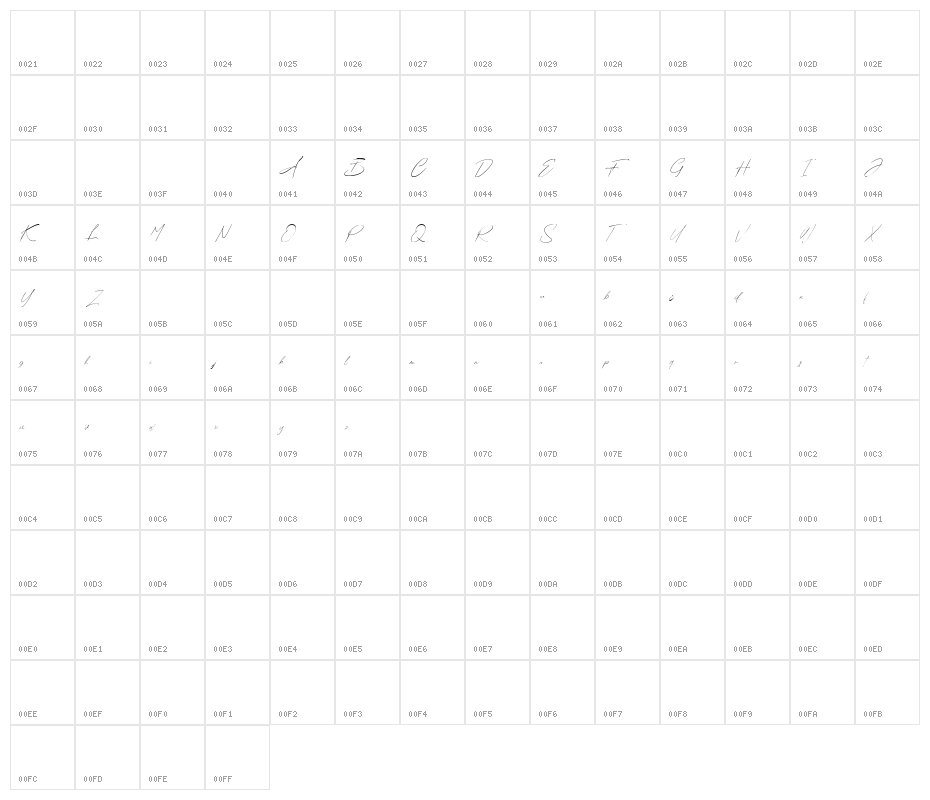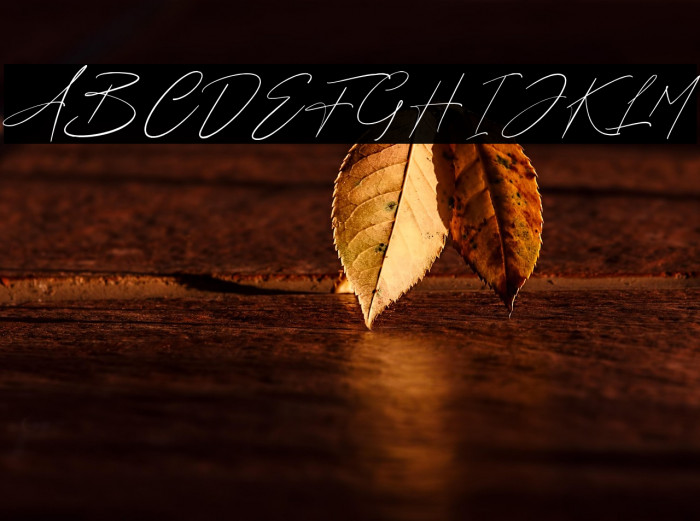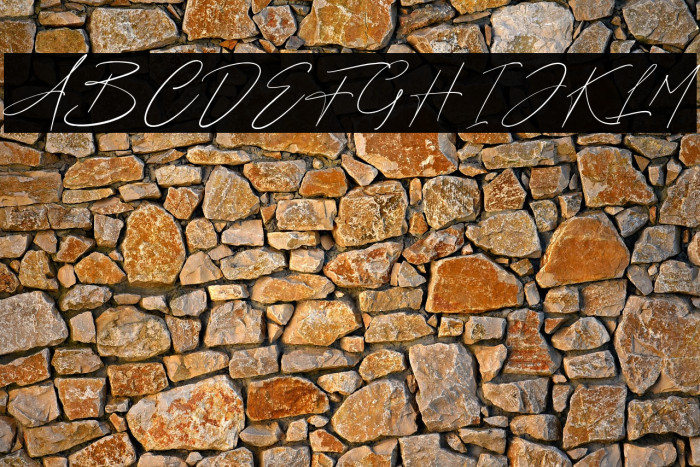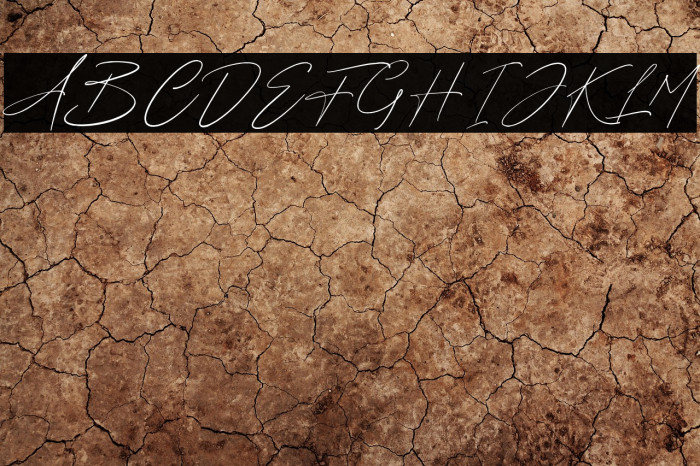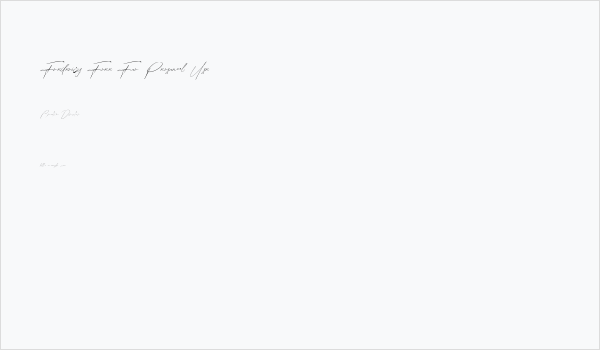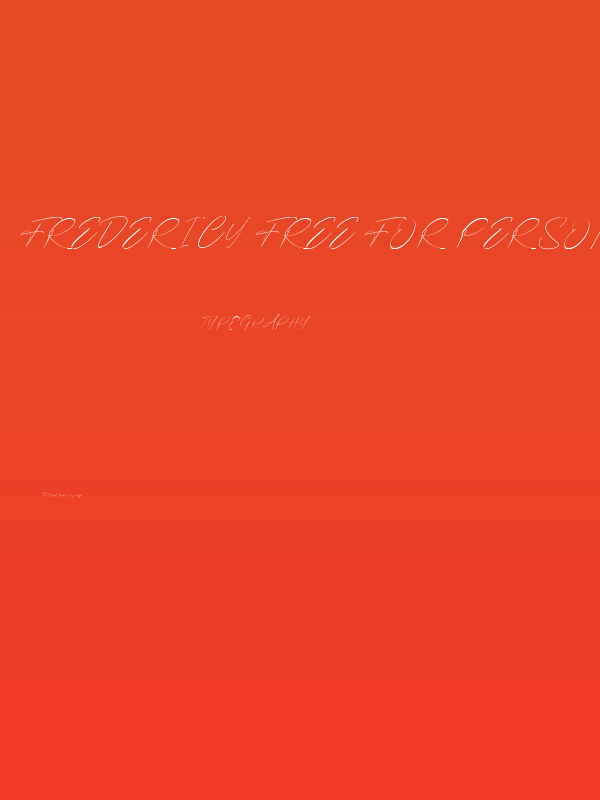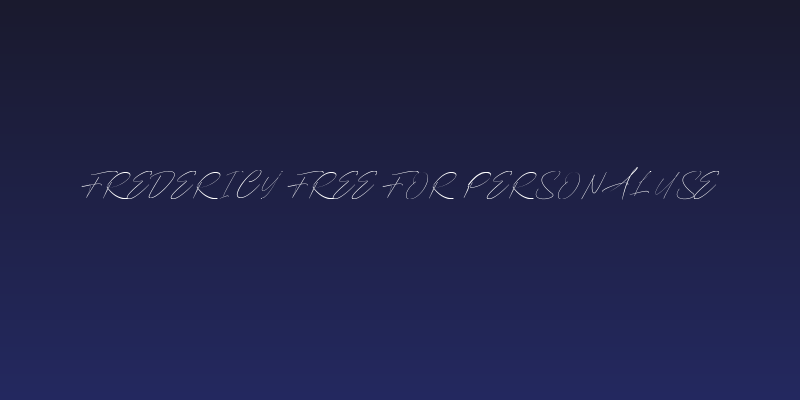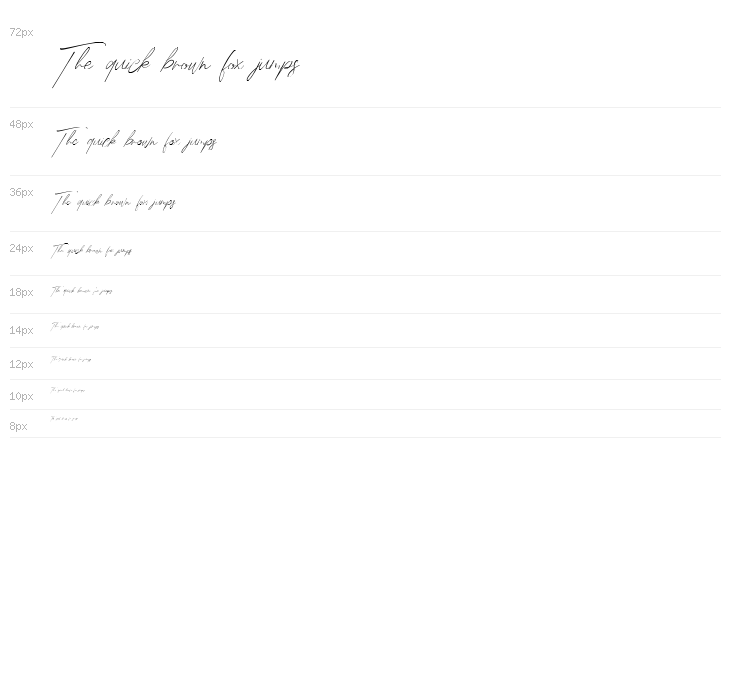
Fredericy Free For Personal Use Font
Fredericy Free For Personal Use Description
This font exudes elegance and fluidity, characterized by its cursive, handwritten style. The letters are connected in a smooth, flowing manner, giving it a sophisticated and artistic appearance. The strokes are thin and delicate, with a slight slant that enhances its graceful look. The uppercase letters are larger and more pronounced, while the lowercase letters maintain a consistent flow. This font is ideal for creating a personal touch in designs, offering a sense of intimacy and warmth.
| Overall Style | Elegant, Artistic |
| Proposed Projects | Ideal for wedding invitations, personal branding, greeting cards, and artistic projects that require a touch of elegance. |